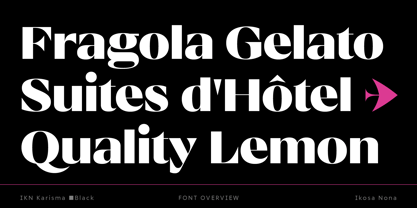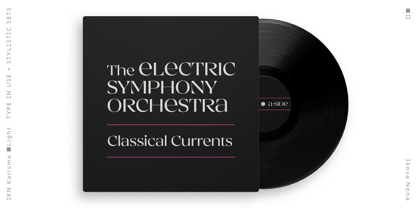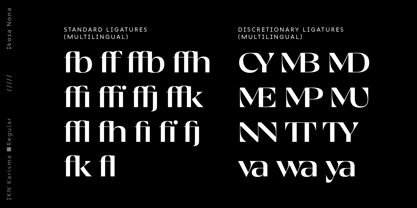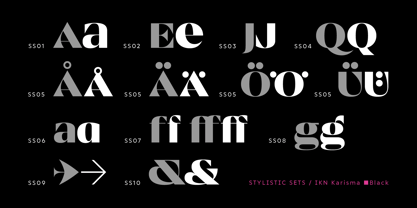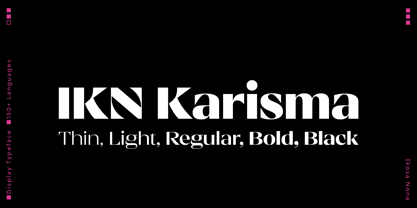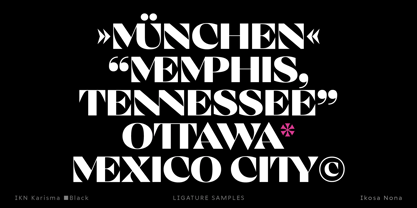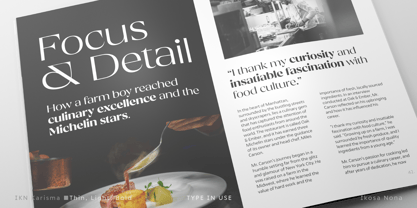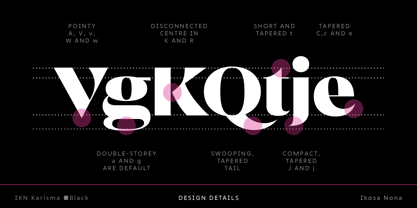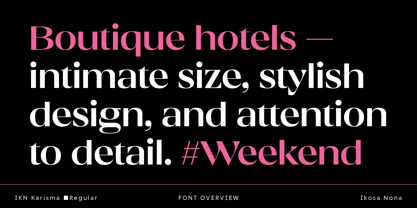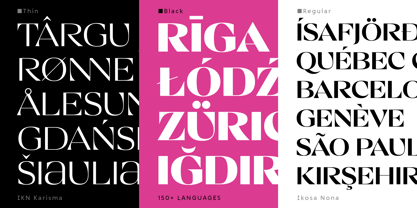
IKN Karisma
by Ikosa Nona
The IKN Karisma Font Family was designed by Andreas Eijerfors, Maria Fredman and published by Ikosa Nona. IKN Karisma contains 5 styles and family package options. More about this family
IKN Karisma is a high-contrast display typeface that lives in the space between a serif and a sans. With sculptural curves, dramatic contrast and occasional inward-flaring serifs, it offers a compelling rhythm and a visually balanced texture. Inspired by the elegance of classic Didones but firmly rooted in contemporary design, IKN Karisma is playful yet refined, striking yet versatile. It brings its own brand of charisma to titles, headlines, subheads, branding, packaging and editorial use. The family includes five weights and comes with extended ligature options, arrows, OpenType features and a wide range of stylistic sets.
Designers: Andreas Eijerfors, Maria Fredman
Foundry: Ikosa Nona